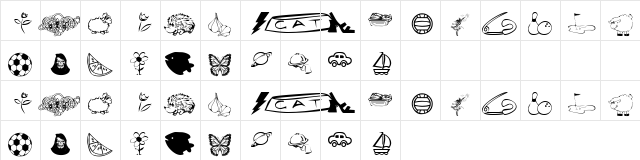
KR Katlings Eight Regular
Design Context for KR Katlings Eight Typeface
KR Katlings Eight is a composed and adaptable typeface that performs quietly and consistently across a wide range of design contexts.